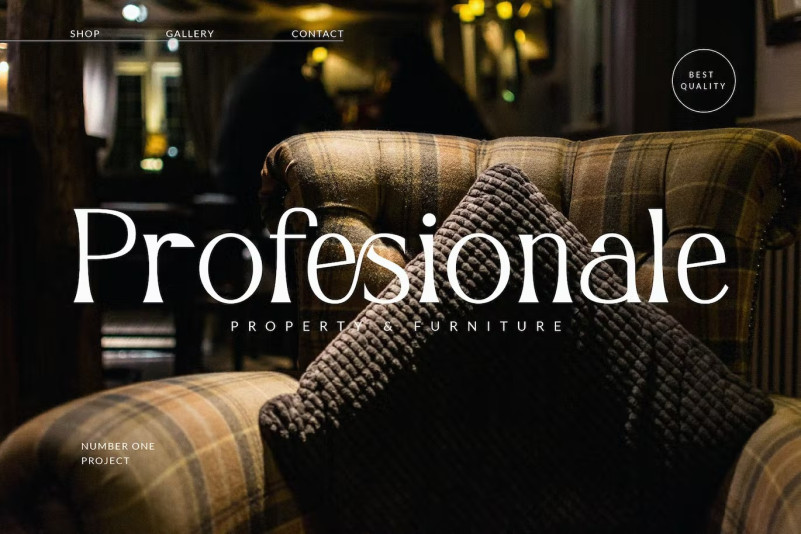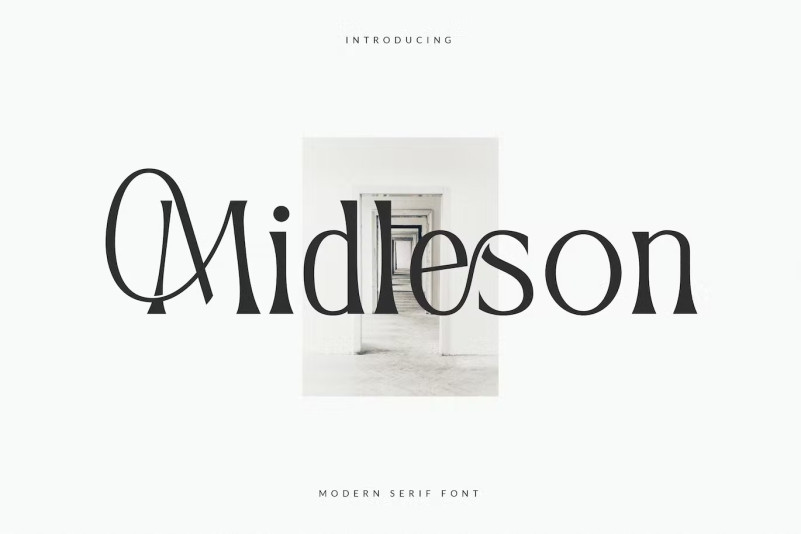
Midleson Font
Midleson Font is a sleek and chic modern serif typeface that also looks absolutely stunning. Suitable for logos, magazines, social networks and various other things. For those of you who need a modern, elegant, stylish and classy touch to their designs, this font is made especially for you! Easy to pair with a variety of simply amazing projects.